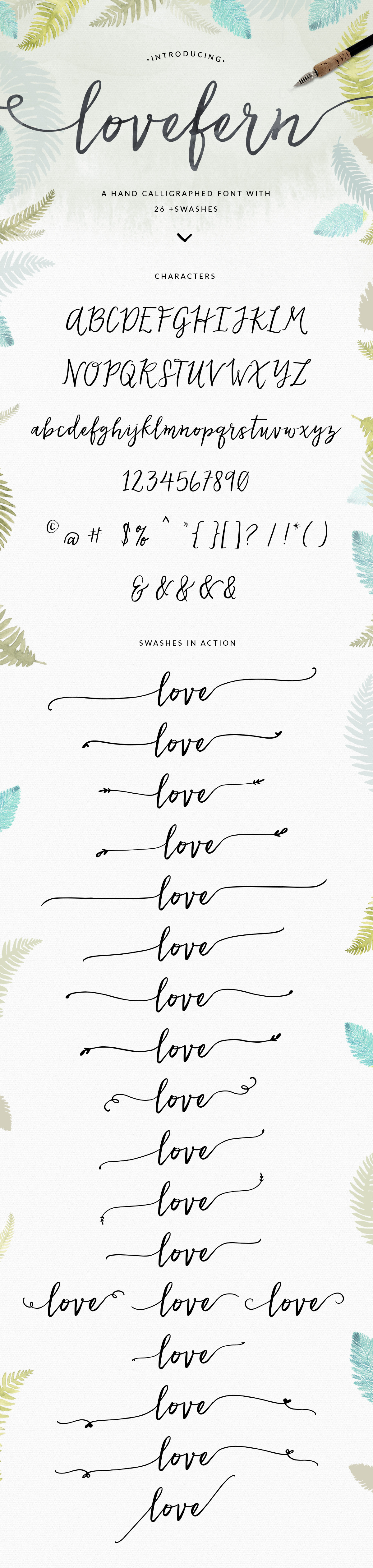
Lovefern Font + SWASHES
Meet Lovefern, a romantic, hand calligraphed font with swashes aplenty. Swash lovers... eat your heart out!
Lovefern features a modern calligraphy style with dancing baseline and 26 different swashes that can be applied to the beginning and ends of all lowercase letterforms. Scroll down on the first image to see 20 of the 26+ swashes in action.
Several lines, fern laurels, and paint dots are also included in the Lovefern Swashes fonts. International support for most Western Languages is included. For the separate swashes font, type lowercase a-z for the beginning swashes and uppercase A-Z for the tail end swashes.
Open Type features include contextual alternates and ordinals. Font contains unique pairs and some alternates including lowercase end characters with shorter tails. To access these special characters, use a glyphs panel.
I loved the way this script looked on the product page, but after downloading it, the Kerning on the script is much larger than what is shown. There is space between each letter in this font and they don't flow together naturally like a script should. This can be adjusted in some platforms, but I was looking for easy of use and not expecting to have to tweak it each time I wanted to use it
It is a pretty font, but am a bit disapponted that the swashes do match up as the sample illustrates.